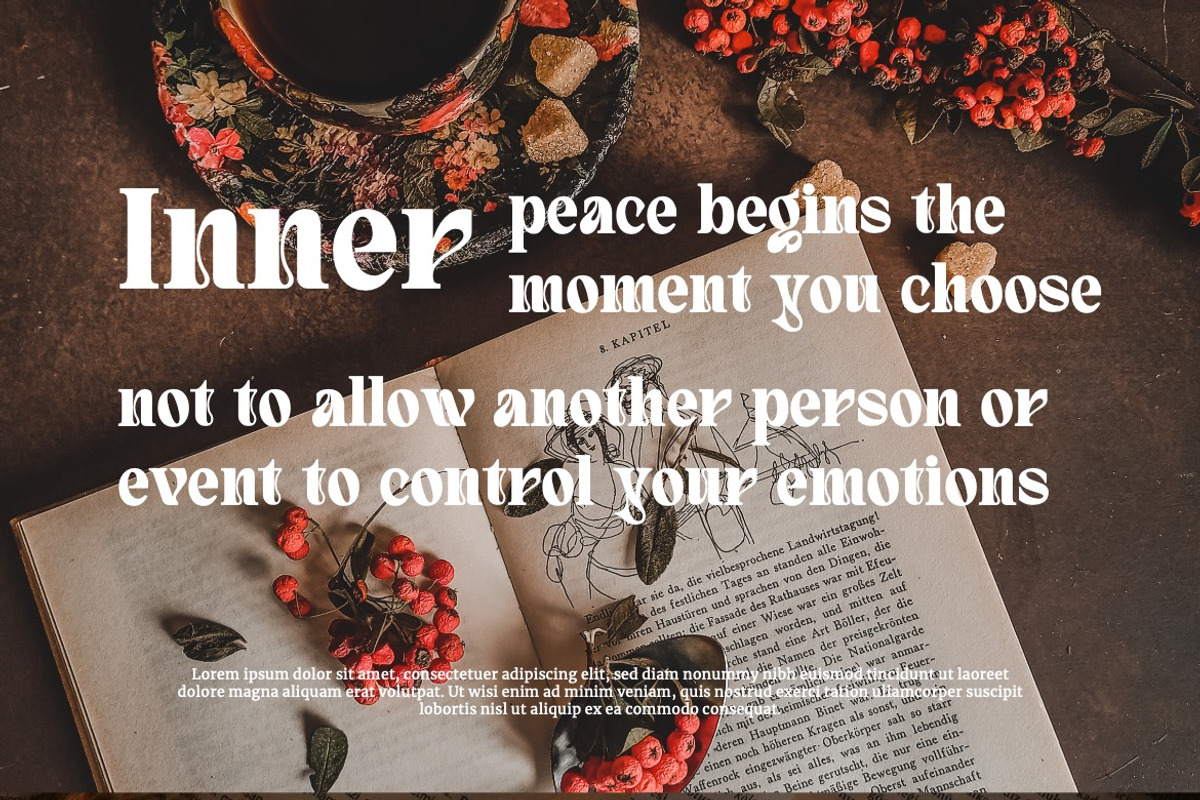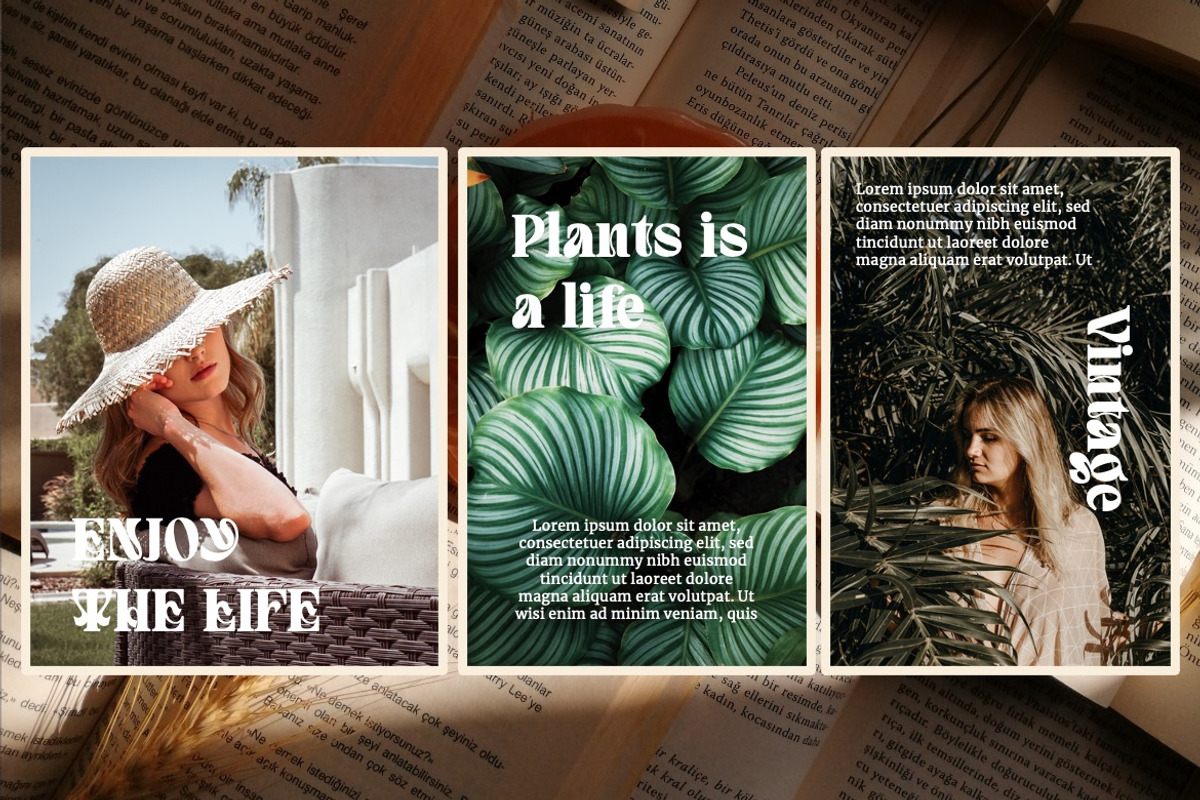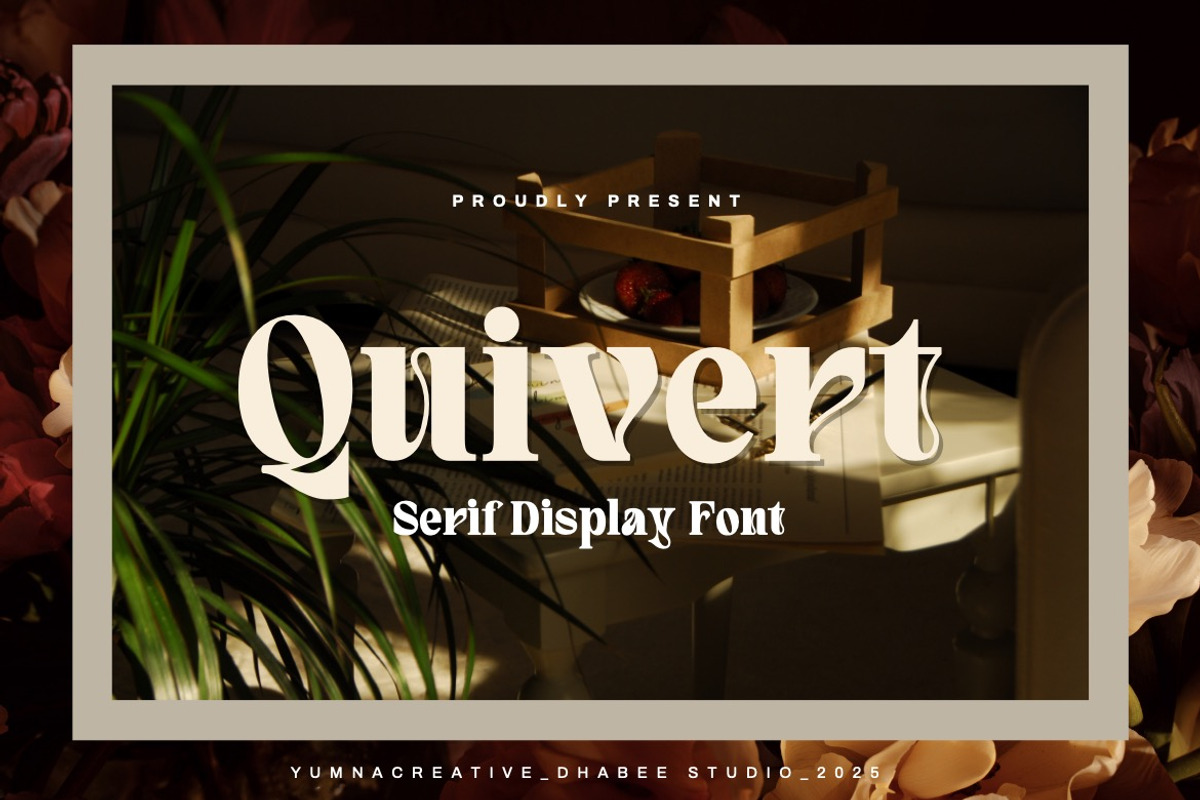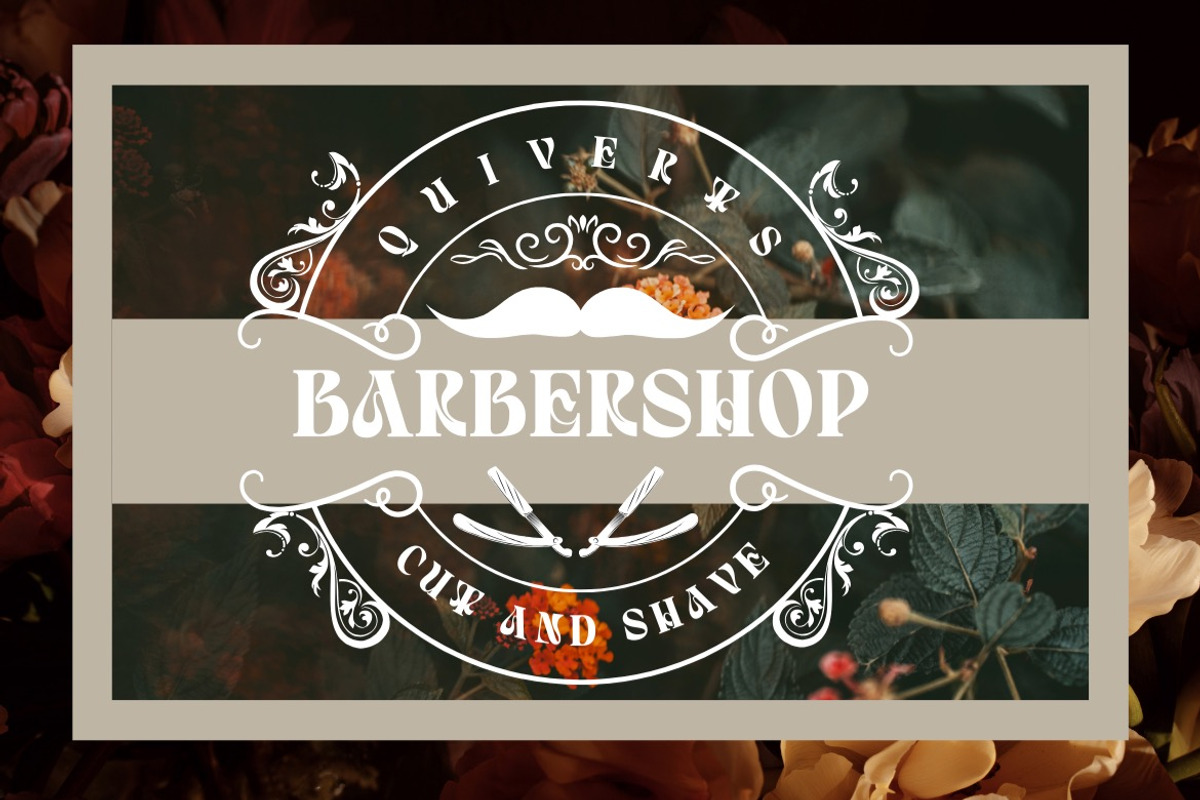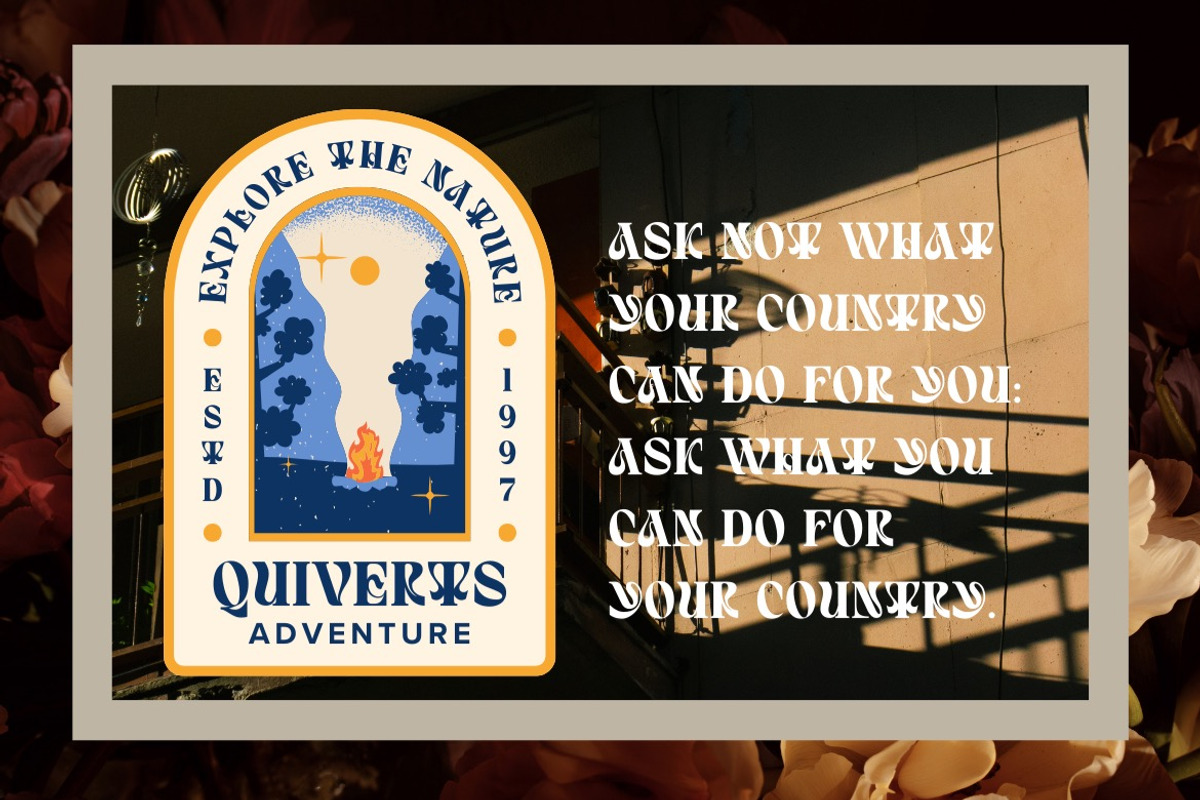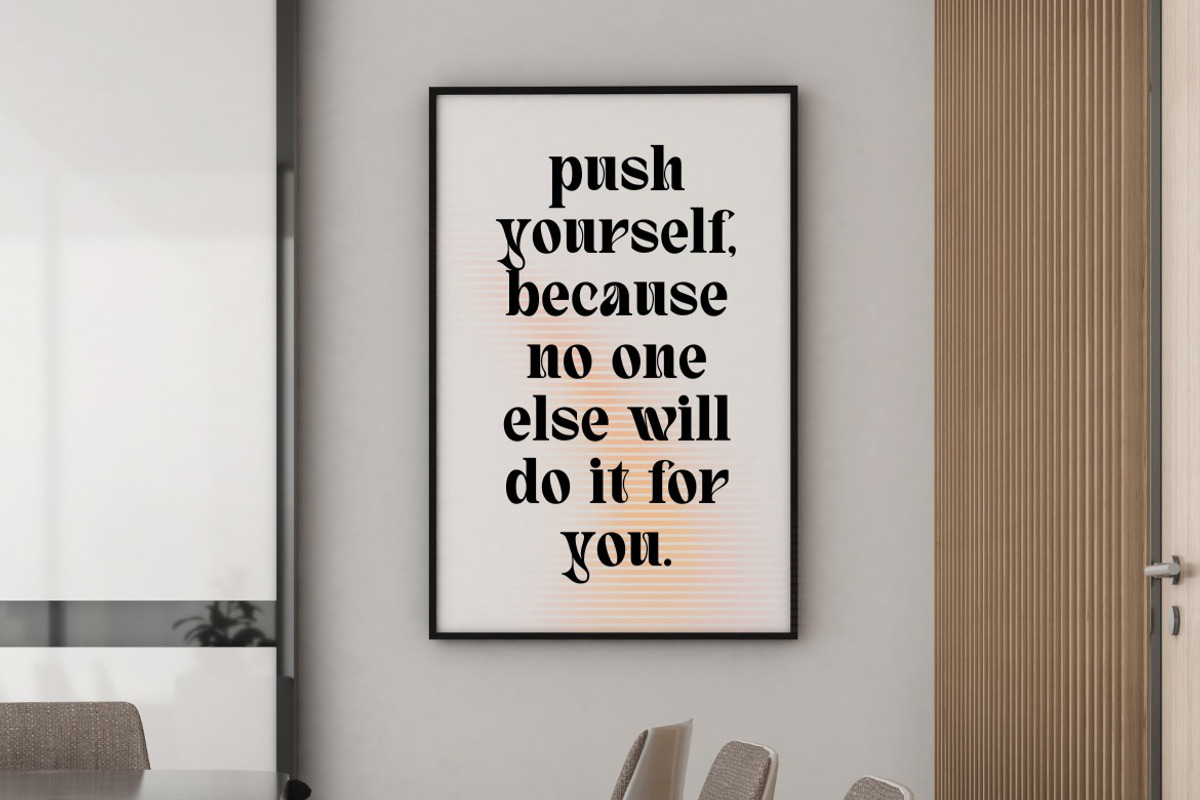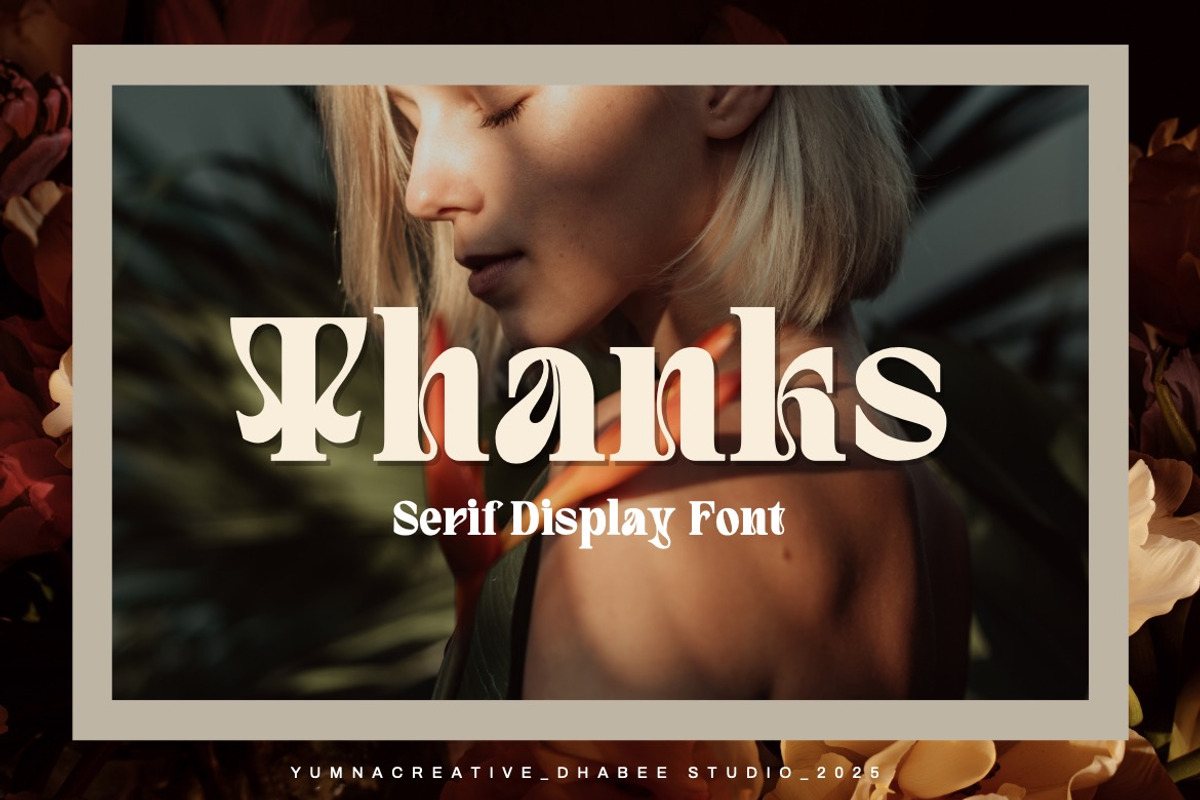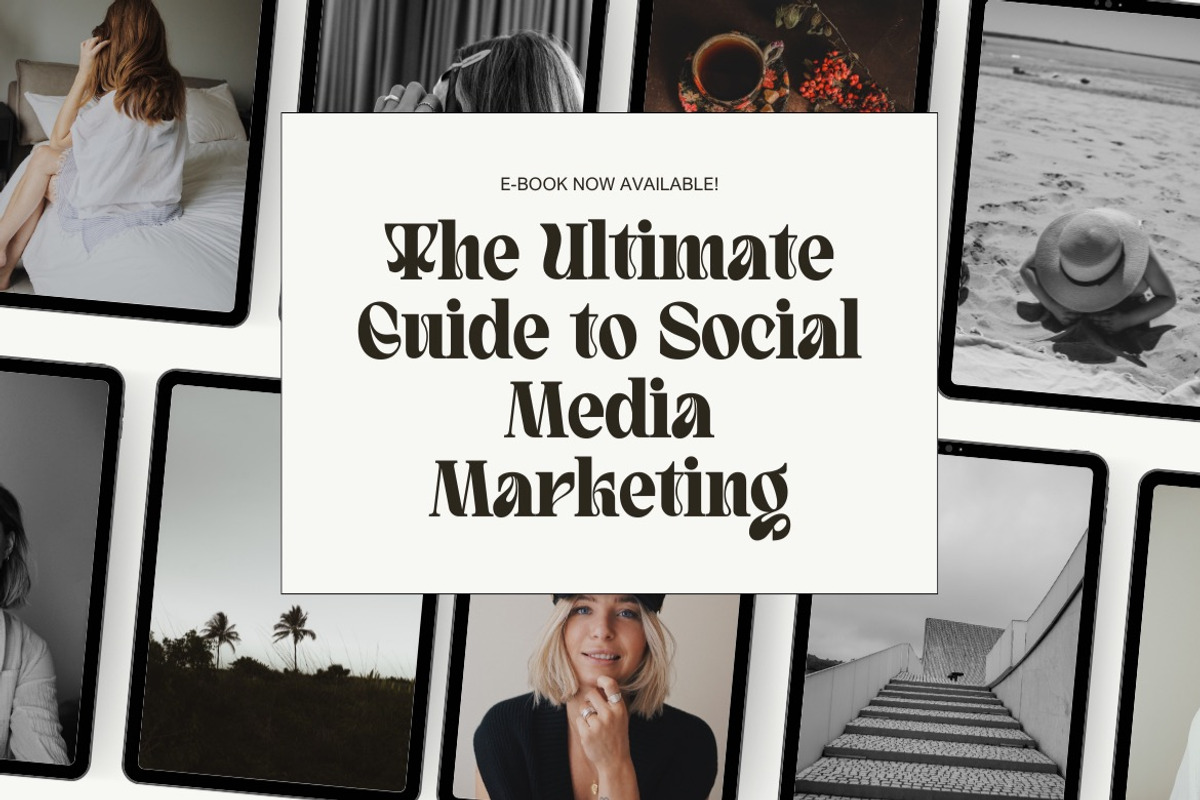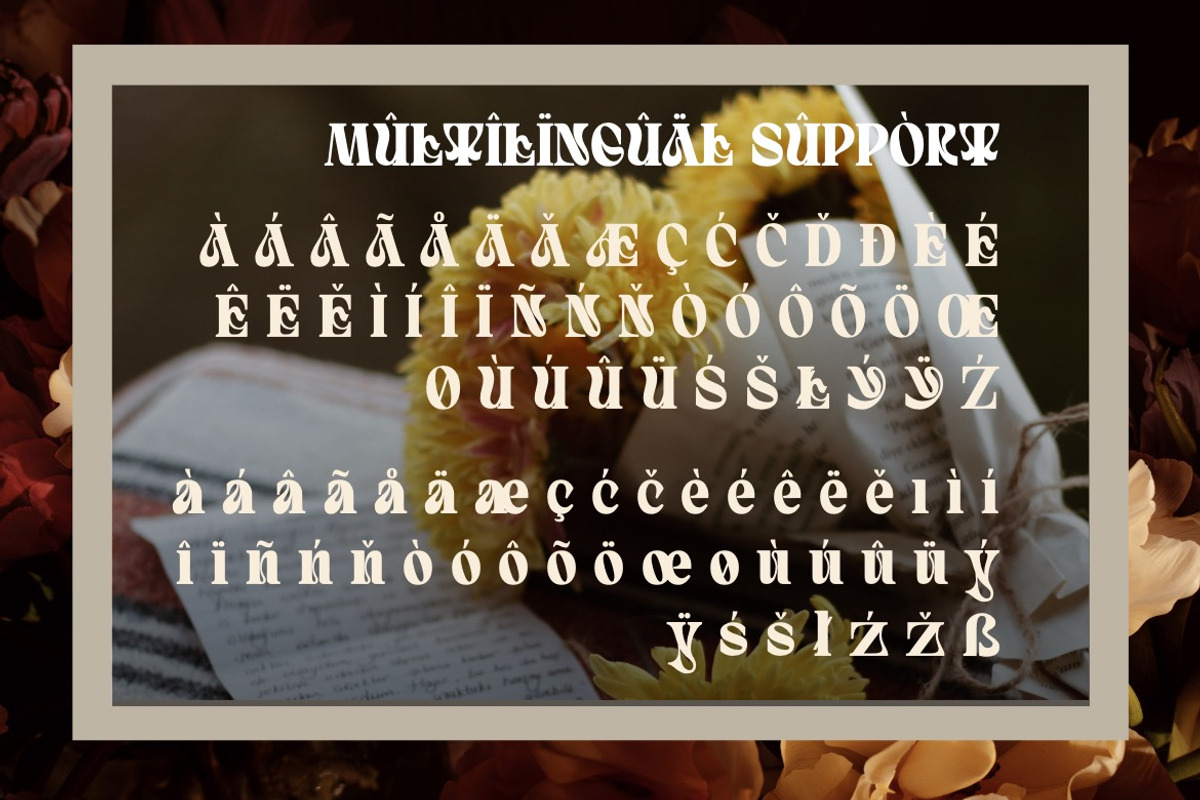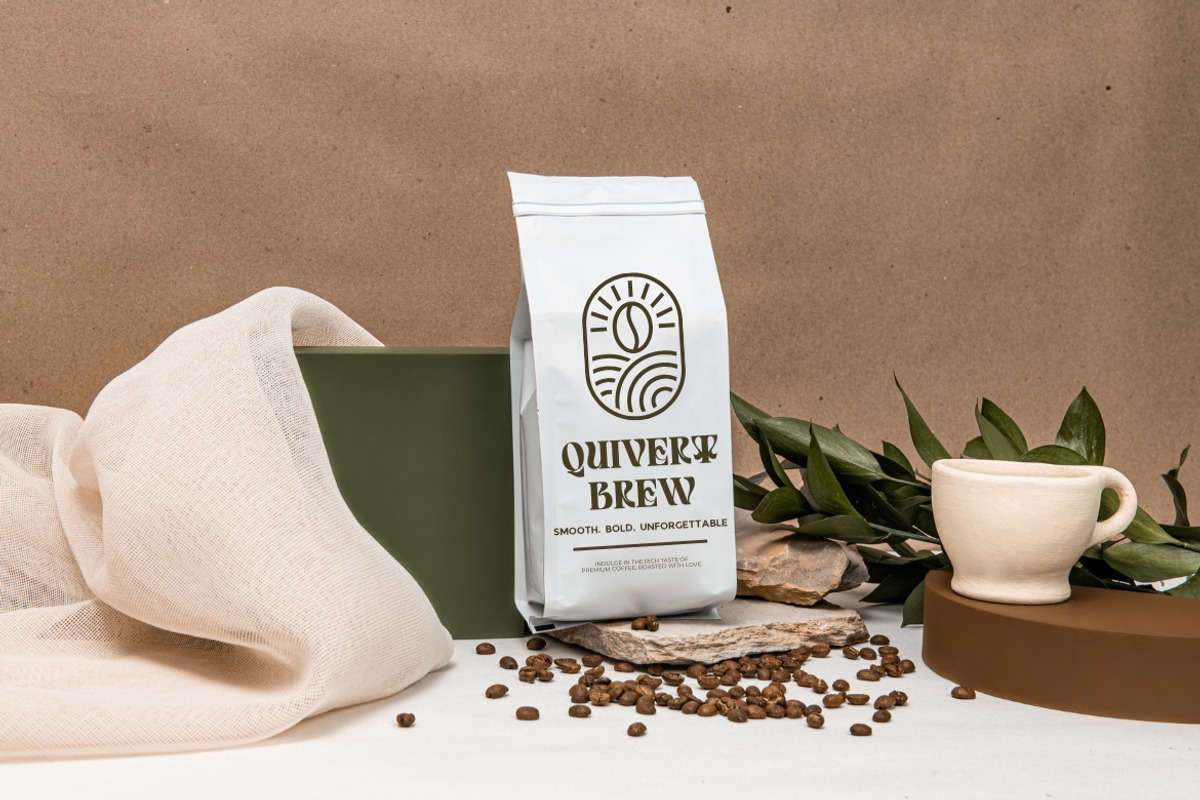
Quivert - Serif Display Font
Introducing Quivert - Serif Display Font
Quivert - Serif Display Font is a Bold vintage style serif font with strong character and soft features. modern and classic serif font with a clear and bold look. It’s a very versatile font that works great in large. Quivert was built with stylistic Alternate and Ligature makes your project will be awesome! Perfect for editorial projects, Logo design, web font, clothing branding, product packaging, magazine headers, or simply as a stylish text overlay to any background image.
• Alternate & Ligature